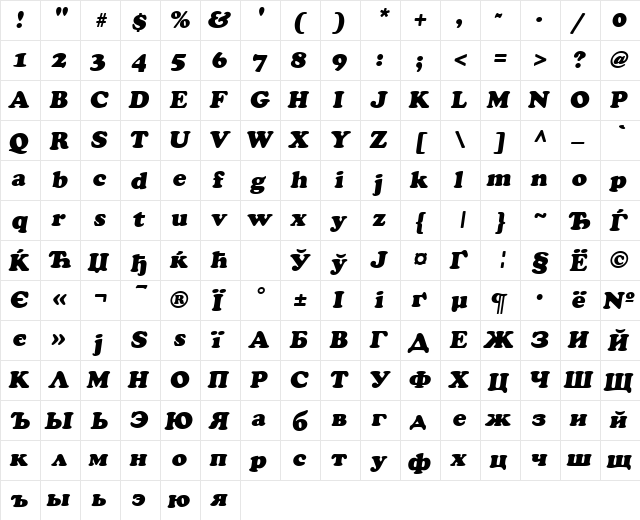
AGCrownStyle Oblique
Design Context for AGCrownStyle Typeface
AGCrownStyle takes a measured approach to typography — its balanced proportions and neutral character make it a reliable workhorse for both digital and print work. The dynamic lean of this cut emphasises speed and emphasis in any layout.
Pro Tip: Use AGCrownStyle for emphasis, pull quotes, and subheadings where its slanted energy can add rhythm to the layout.